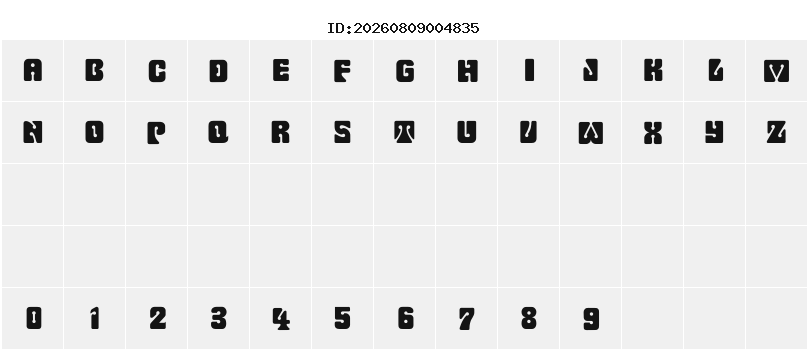
Pinochle-Normal Preview
• Font Name: Pinochle-Normal
• Full Font Name: Pinochle-Normal
• PostScript Name: Pinochle-Normal
About Pinochle-Normal.ttf
Pinochle-Normal.ttf is a modern, elegant sans-serif font designed for ultimate readability and visual harmony. Perfect for branding, headlines, web design, and print materials.